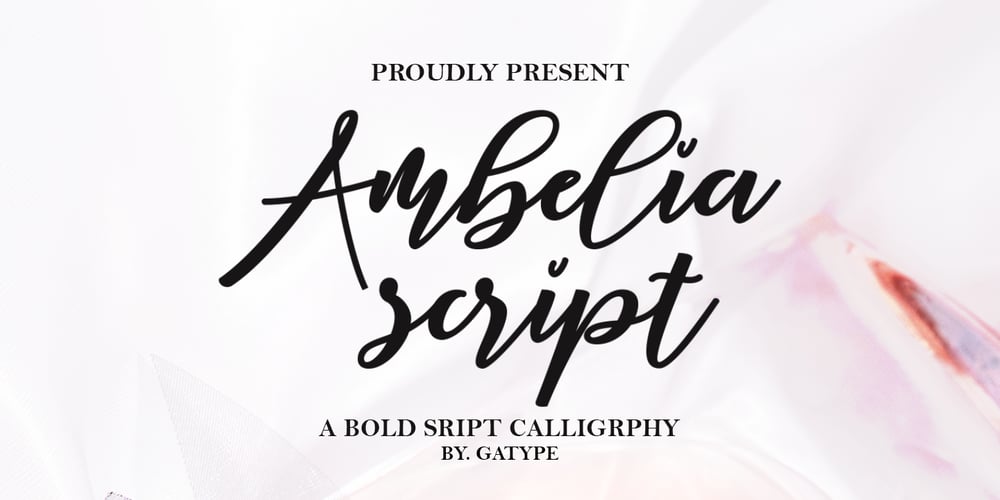
Ambelia Script Font Family was designed by khaidir and published by Gatype. Ambelia Script contains 1 styles and family package options. Ambelia Script is a natural handwritten font, it is perfect for logos, invitations, stationery, wedding designs, social media posts, advertisements, product packaging, product design, labels, photography, watermarks, special events or anything else.Ambelia Script comes with a full set of uppercase and lowercase letters, lowercase strokes, multilingual symbols, numbers, punctuation and liature.If you have any questions, feel free to message me